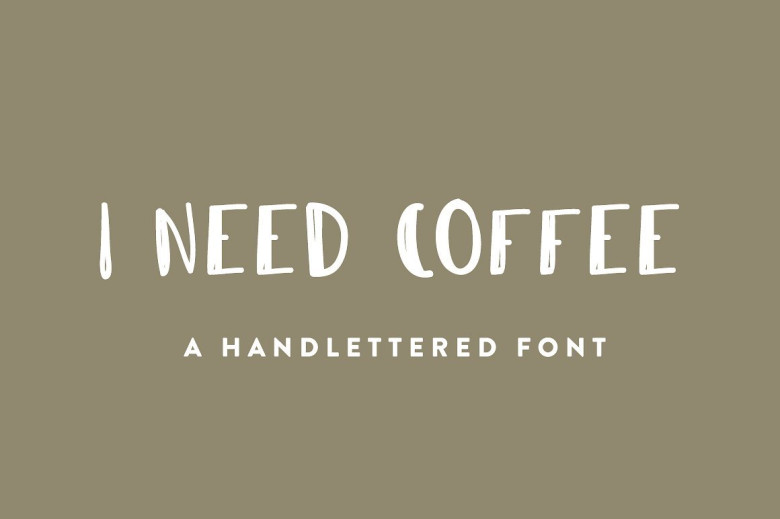
I Need Coffee Font
Introducing I Need Coffee Font! I Need Coffee designed by The Fresh Exchange, this is a premium font, are sold on creativemarket, but it was great, it is free today for download. An all uppercase font with numbers and a few pieces of punctuation. This would be a great font to use to create graphics for social media campaigns or on an image for blog posts. The font has a rough and hand created feeling that speaks to adventure and is very laid back. Not meant to be much more than a casual font.